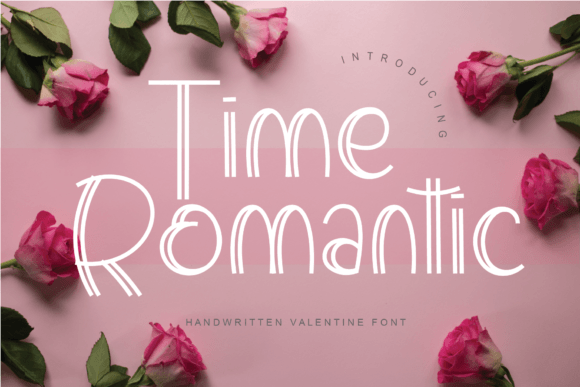
Journey into the realm of captivating aesthetics with Time Romantic Font, a script masterpiece that adds a touch of elegance to your digital creations. Its double-letter structure weaves a symphony of visual harmony, effortlessly blending simplicity and uniqueness in every character.
Time Romantic beckons you to unleash your creativity, inviting you to explore a world where words dance with grace and sophistication. With its beautifully balanced personality, it effortlessly adapts to a diverse range of design families, becoming an integral part of your artistic vision.
Picture your designs adorned with the timeless beauty of Time Romantic. Its delicate strokes evoke a sense of nostalgia, transporting you to a bygone era of handwritten letters and heartfelt expressions. Whether you're crafting logos, branding materials, or eye-catching social media posts, Time Romantic transforms ordinary text into an extraordinary visual experience.
Embrace the allure of Time Romantic and watch as your creative ideas come alive in vibrant splendor. Its versatility extends far beyond mere aesthetics, as it effortlessly complements a wide spectrum of design styles. From whimsical and playful to classic and timeless, Time Romantic harmonizes seamlessly with your artistic aspirations.
With Time Romantic as your creative ally, you hold the power to enchant and captivate your audience. Let your words radiate with sophistication and charm, leaving an indelible mark on the hearts and minds of those who encounter them.